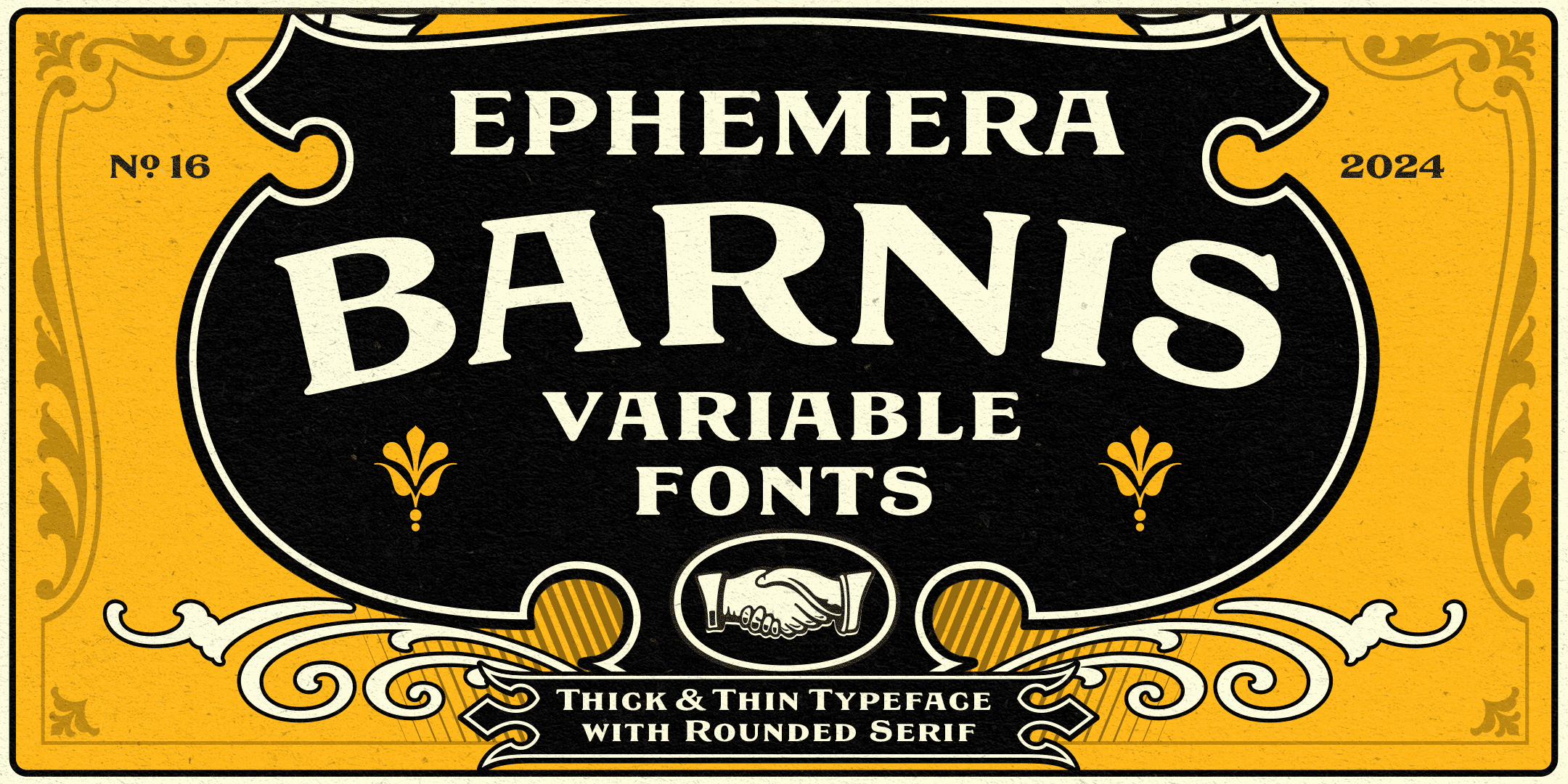
EFCO Barnis Font is ideal for various design applications including industrial manufacturing branding, construction equipment marketing, heavy machinery documentation, engineering firm communications, factory safety signage, industrial facility materials, mechanical workshop displays, and commercial construction projects that require industrial sophistication and manufacturing excellence.
What makes EFCO Barnis Font truly exciting is its powerful embodiment of industrial strength and manufacturing precision that captures the essence of heavy-duty construction and the robust engineering that builds our modern infrastructure through reliable machinery and uncompromising industrial standards. This commanding typeface features bold, structural letterforms with subtle industrial details that evoke images of construction sites, manufacturing facilities, and the powerful machinery that shapes our built environment through precision engineering and industrial expertise. The font's industrial character reflects the strength and reliability required in manufacturing sectors, making it perfect for brands that want to communicate industrial excellence, construction authority, and the robust performance that defines successful manufacturing and construction enterprises. Its mechanical appearance creates immediate associations with industrial power and construction reliability.
The EFCO Barnis Font family includes multiple weights and industrial variations designed to enhance manufacturing communication. The collection features Regular, Medium, Bold, and Black weights, each maintaining the font's characteristic industrial appeal while offering different levels of manufacturing presence. The family also includes alternate characters with varying mechanical effects, construction elements that simulate industrial equipment, and stylistic sets that create powerful text arrangements reflecting the strength of industrial operations. Additional features include contextual ligatures and manufacturing sets that create robust, professional arrangements perfect for industrial and construction applications.
Industrial and construction professionals consistently choose EFCO Barnis Font Free Download for projects requiring authentic industrial character and manufacturing credibility. The font's robust nature makes it particularly effective for construction companies, manufacturing firms, and industrial organizations targeting clients who expect reliable performance and industrial excellence. Its excellent visibility and commanding presence ensure effective communication while maintaining the distinctive industrial character that conveys manufacturing authority and construction sophistication.
The advanced OpenType capabilities of EFCO Barnis Font include contextual alternates, stylistic sets, and comprehensive character support that accommodates industrial terminology and construction expressions while preserving the font's authentic manufacturing character. The technical precision ensures consistent industrial appearance across different construction applications and manufacturing platforms.
For creative professionals seeking a typeface that embodies genuine industrial heritage and manufacturing sophistication, EFCO Barnis Font offers unparalleled construction appeal and mechanical elegance. Its ability to convey industrial authority while maintaining functional communication makes it invaluable for construction companies, manufacturing firms, and industrial service providers. The font's distinctive industrial character ensures memorable manufacturing impact across all applications, creating powerful visual identity systems that celebrate the strength of industrial engineering and the reliable performance that defines successful construction and manufacturing enterprises through robust machinery and uncompromising industrial standards.